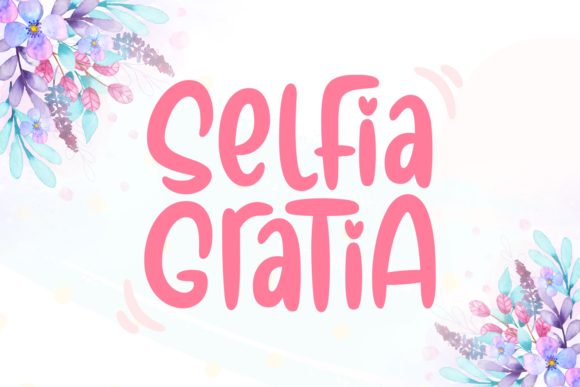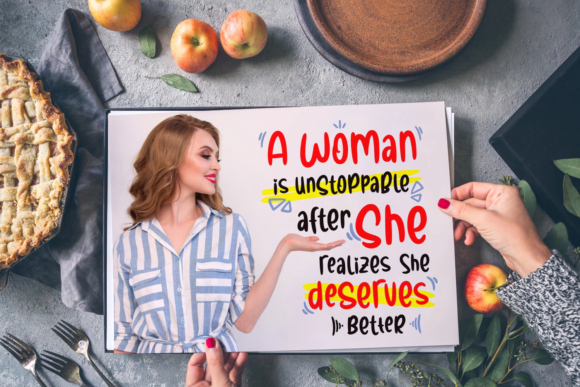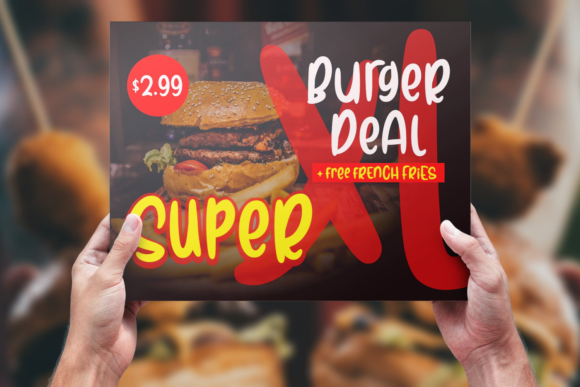
Selfia Gratia Font
About Selfia Gratia Font
Selfia Gratia is a bold and fun handwritten font with a lovely charm. It will inspire any design idea with its authentic touch.